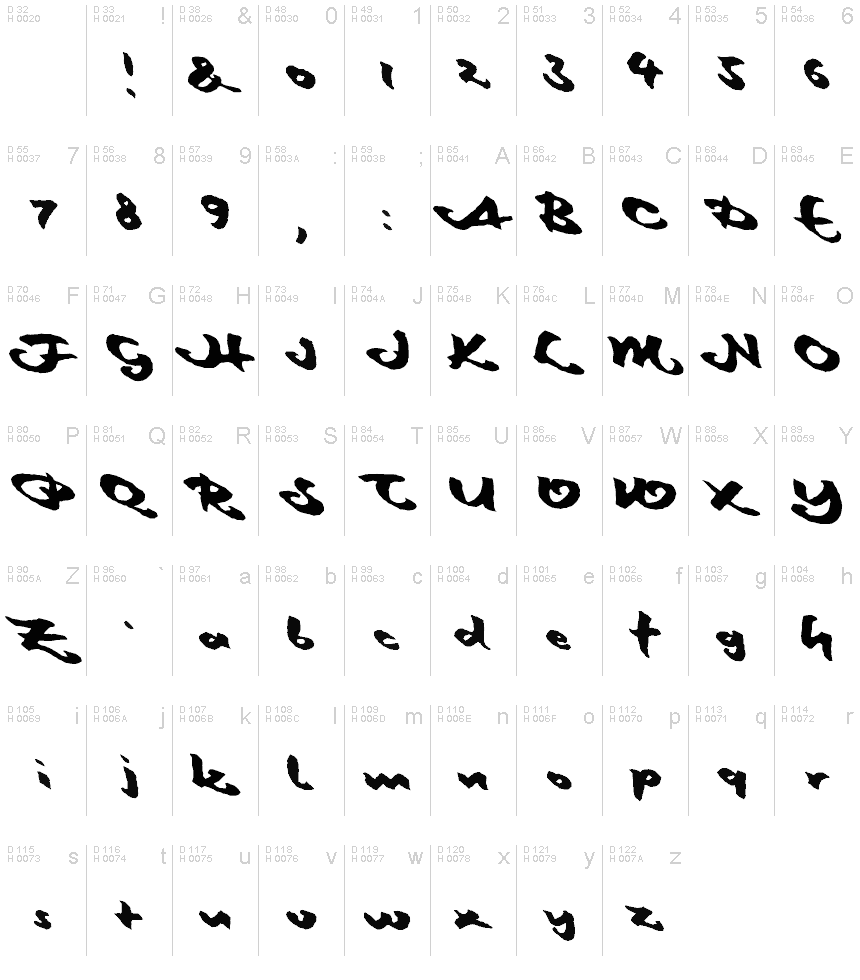
MaidenVoyage
Maiden Voyage is a captivating brush font that exudes an air of effortless elegance and movement. Its bold, expanded strokes create a dynamic, expressive aesthetic, perfect for adding visual impact to titles, headers, and impactful design elements. The font's organic, hand-crafted appearance lends a sense of artistry and individuality, making it an excellent choice for branding, editorial design, and creative projects where a distinctive, artisanal touch is desired.
Maiden Voyage's versatility shines through, seamlessly transitioning between bold emphasis and refined sophistication. Its expansive width and confident brushstrokes make it an ideal selection for commanding attention, while its fluid, brush-like quality lends itself well to more delicate, feminine applications. This font's versatility, coupled with its visually striking presence, make it a valuable addition to any designer's toolkit.